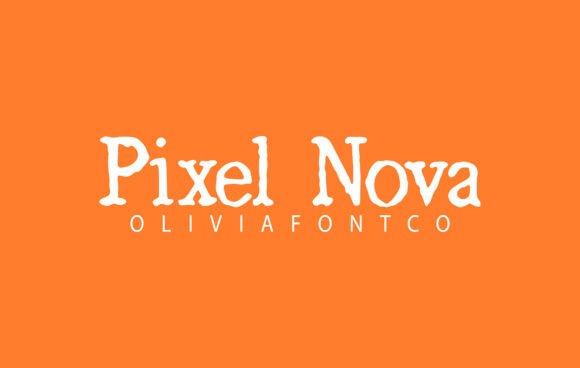
Pixel Nova Font: Authentic Handwritten Style for Branding
Testing Pixel Nova Font for Artisan Skincare Packaging Design
When I first opened the brand board for a new organic skincare client, I knew that standard Fonts would not capture the intimate, handcrafted essence of their products. Pixel Nova font is an authentic handwritten font with a romantic touch, and it immediately stood out as the perfect candidate to anchor the visual identity for this artisanal line. Expertly designed to be a true favorite, this font has the potential to take your creative ideas to the highest level, especially when the project demands a balance between professional legibility and personal warmth. Although categorized technically under Slab Serif structures in some databases due to its weighted terminals, my practical testing revealed it functions beautifully as a hybrid display typeface that bridges the gap between structured typography and organic script.
The initial mockup phase is always where a typeface proves its worth, and applying Pixel Nova to the primary product labels was a revealing experience. Unlike many decorative fonts that sacrifice readability for style, this typeface maintained excellent clarity even at smaller sizes on amber glass bottles. The romantic touch mentioned in the product description isn't just marketing fluff; it manifests in the gentle curves and deliberate imperfections that make the packaging feel like it was lettered by hand rather than generated by a machine. For designers working in the beauty or wellness niche, finding a font that feels premium yet accessible is a constant challenge, and Pixel Nova solved this tension effortlessly during the concept stage.
Pixel Nova in Logo Design and Visual Identity Systems
Integrating Pixel Nova into the logo design required understanding its unique anatomy as both a handwritten font and a structural element within the broader brand system. While exploring Fonts for the logotype, I found that Pixel Nova’s distinct character shapes provided enough personality to stand alone without needing excessive graphical embellishments. Expertly designed to be a true favorite, this font has the potential to take your creative ideas to the highest level when used as the primary wordmark for boutique businesses or creative studios. The slab-like weight distribution gives the letters a grounded presence that prevents them from looking too fleeting or informal, which is crucial when establishing trust for a new brand.
During the identity development, I tested the font across various lockups and noticed how well it adapted to different spatial constraints. In horizontal layouts for website headers, the natural flow of the handwriting created a welcoming rhythm, while in stacked arrangements for business cards, the vertical alignment remained stable. This versatility is rare in authentic handwritten styles, which often struggle with spacing consistency. For fellow graphic designers, I recommend utilizing the OpenType features if available to access alternates that can customize the logotype further, ensuring the final mark feels bespoke. The font acts as a sophisticated anchor, allowing supporting elements to remain minimal and clean.
Pairing Pixel Nova with Modern Typography for Editorial Layouts
Creating a cohesive editorial spread meant finding the right partner for Pixel Nova among modern sans serif Fonts to ensure the romantic touch didn't overwhelm the content. Pixel Nova font is an authentic handwritten font with a romantic touch, but it requires a high-contrast pairing to maintain professional hierarchy in brochures and lookbooks. Expertly designed to be a true favorite, this font has the potential to take your creative ideas to the highest level when juxtaposed against a crisp, geometric sans serif or a neutral Slab Serif body text. In my project, I paired it with a lightweight grotesque typeface for ingredient lists and educational copy, allowing Pixel Nova to shine exclusively in headlines, pull quotes, and accent callouts.
The interaction between the handwritten display font and the structured body text created a dynamic visual tension that kept the reader engaged. On social media graphics specifically, this pairing proved essential for stopping the scroll. When designing Instagram templates for the skincare brand, using Pixel Nova for the hook text against a solid background color resulted in higher engagement compared to previous iterations using standard serifs. The key takeaway for designers is to treat Pixel Nova as a voice rather than just a texture; let it speak the emotional parts of the message while your secondary fonts handle the logistical information. This strategic division of labor ensures the design remains functional across digital and print mediums.
Applying Pixel Nova to Website Headers and Digital Assets
Transitioning the brand to digital platforms required verifying that Pixel Nova performs reliably alongside web-safe Fonts without losing its authentic charm. Pixel Nova font is an authentic handwritten font with a romantic touch, making it ideal for hero sections where establishing an immediate emotional connection is paramount. Expertly designed to be a true favorite, this font has the potential to take your creative ideas to the highest level when implemented as large-scale display typography on landing pages. During the web design phase, I paid close attention to loading times and rendering, ensuring that the intricate details of the handwritten strokes remained sharp on both retina displays and mobile screens.
One practical observation from the web implementation was the importance of generous whitespace around Pixel Nova elements. Because the font carries so much character and texture, crowding it with other UI elements can diminish its impact. I used it primarily for section titles and testimonial highlights, allowing the negative space to frame the letterforms elegantly. For e-commerce sites selling handmade goods or personalized services, this approach reinforces the artisanal value proposition directly through typography. Additionally, checking the commercial licensing for web use is a critical step before deployment to ensure full compliance while leveraging the font’s ability to elevate the user experience.
Evaluating Pixel Nova for Commercial Print and Merchandise
Finalizing the project involved stress-testing Pixel Nova across physical merchandise where ink behavior differs significantly from screen-based Fonts. Pixel Nova font is an authentic handwritten font with a romantic touch, and seeing it embossed on paper stock or printed on cotton tote bags confirmed its tactile suitability for premium goods. Expertly designed to be a true favorite, this font has the potential to take your creative ideas to the highest level when applied to tangible brand touchpoints that customers interact with physically. The slight irregularities in the stroke width translated beautifully to uncoated paper, enhancing the organic feel of the thank-you cards and shipping stickers included in the packaging suite.
For designers considering this typeface for client work, I strongly advise creating physical proofs before approving final production files. What looks perfectly balanced on a backlit monitor may need slight tracking adjustments when printed at small scales on textured materials. In our case, increasing the letter spacing slightly for the business card version improved legibility without sacrificing the intimate aesthetic. This attention to detail is what separates a generic template from a truly custom brand identity. Pixel Nova delivers the authenticity that modern consumers crave, but it demands a designer’s thoughtful execution to reach its full potential across diverse applications. Whether you are branding a local café, a wedding stationery suite, or a lifestyle blog, this font offers a distinctive voice that resonates deeply when applied with intention and care.